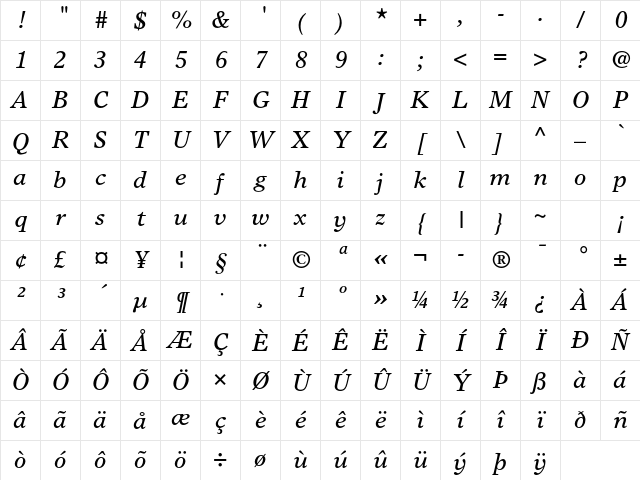
Times Europa LT Std Italic
Designer: Walter Tracy
Design Context for Times Europa LT Std
Times Europa LT Std is a composed and adaptable typeface that performs quietly and consistently across a wide range of design contexts. The slanted form adds forward momentum and visual energy. Its slender proportions lend an understated elegance to any composition.
Pro Tip: Use Times Europa LT Std for emphasis, pull quotes, and subheadings where its slanted energy can add rhythm to the layout.